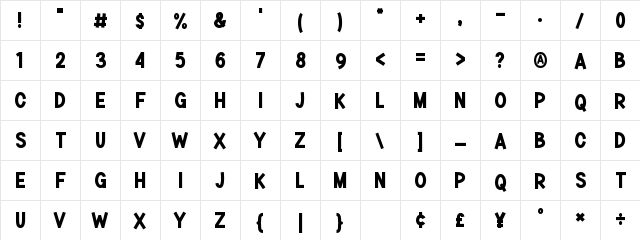
Milo Glizler Regular
Designer: Andi Syahdang
Design Context for Milo Glizler
Milo Glizler is a composed and adaptable typeface that performs quietly and consistently across a wide range of design contexts.
Pro Tip: Use Milo Glizler in both headline and body roles to test its range before committing to a single application.